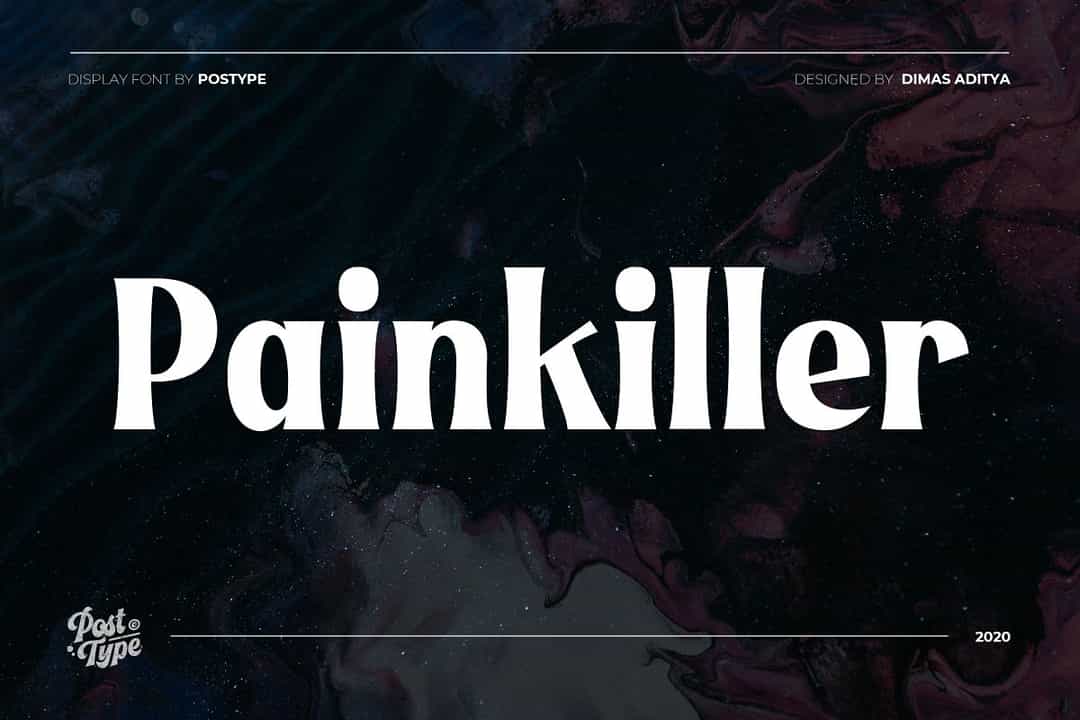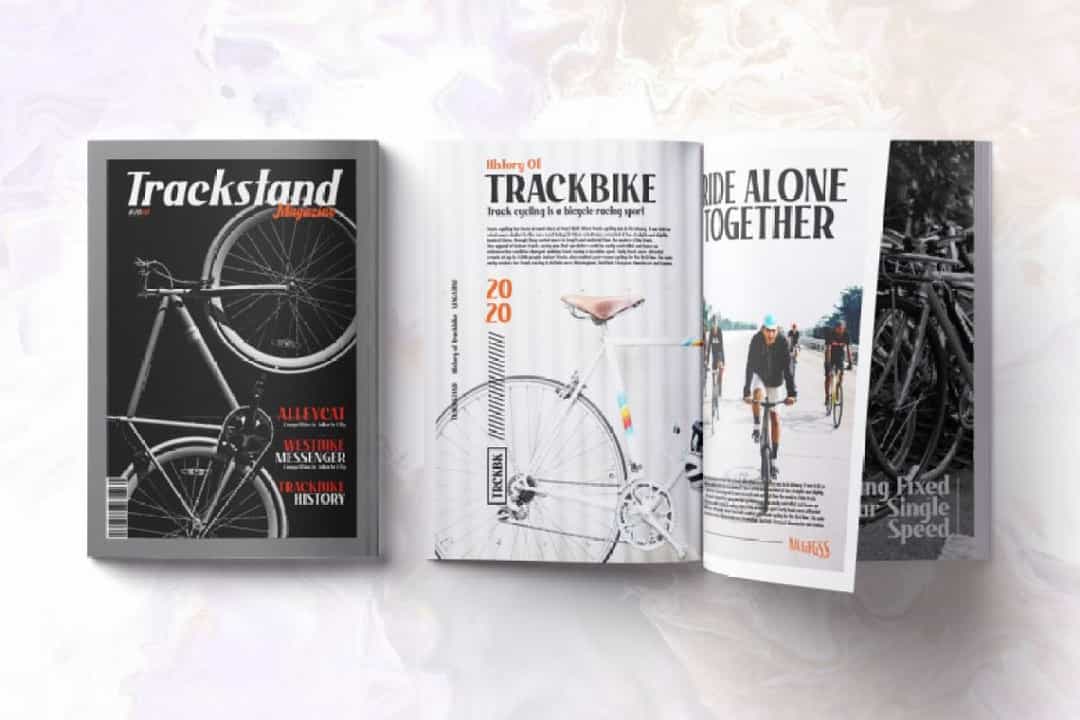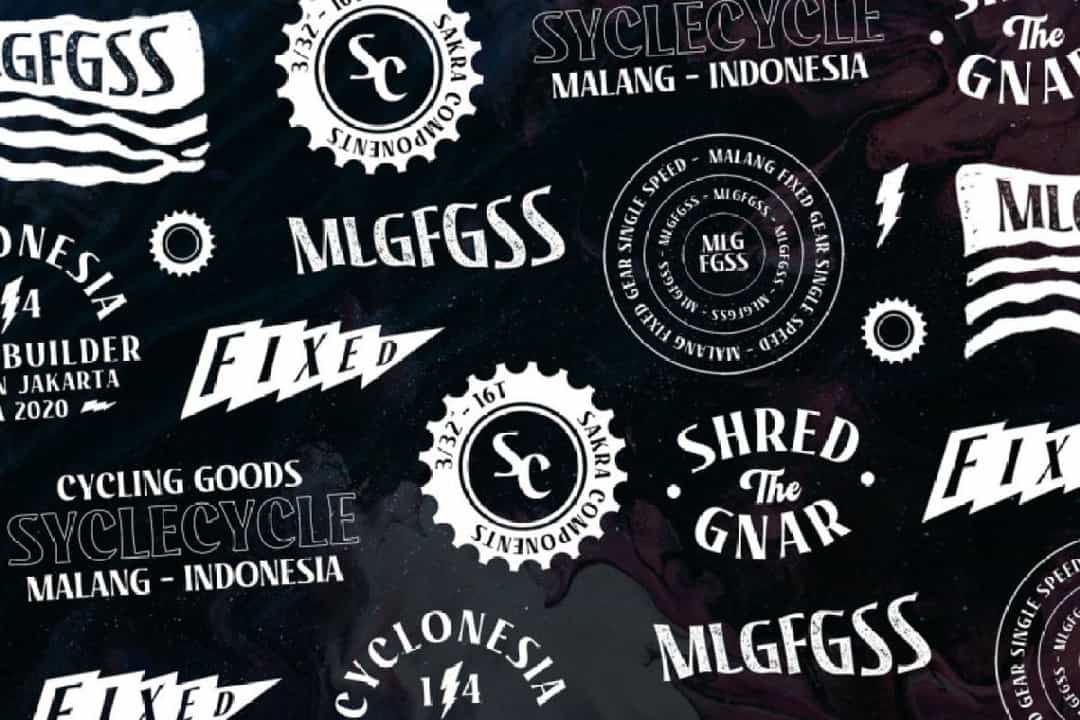
Get ready to meet our new fantastic Painkiller Display Font! Suits best for logo design, modern advertisements, posters, quotes, book or cover titles as well as editorial designs, website or blog cards, t-shirts or handwritten purposes and it can be used for all the design purposes without any problem.